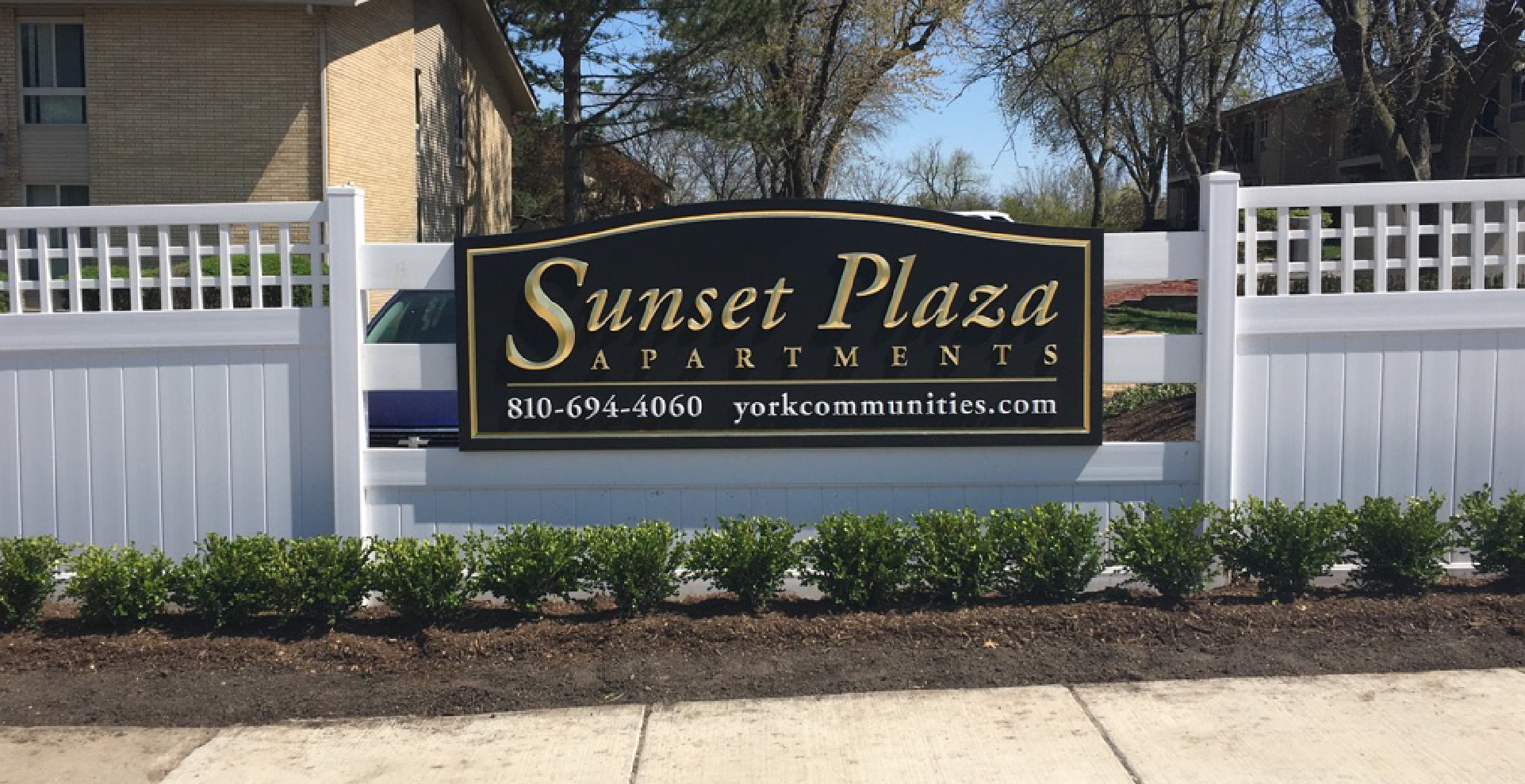
Just finished this Monday.
HDU Signfoam, Convex Letters.
Sunset Plaza Gold Leaf
Hey Mr. Betz....how did you do the project. Hand carved...CNC? Looks good and clean and am sure you've got a happy customer.
These were done on our 408 Gerber Sabre Router.
We Routed the Sign Panel, then inscribed the Outlines
of the Lettering, which gives us the Layout of the Letters.
The Borders were V Carved using the Router.
We Routed the Letters separate. After painting and Gilding
we Applied the letters to the Sign and Gilded the Borders.
Total Signs: 4.